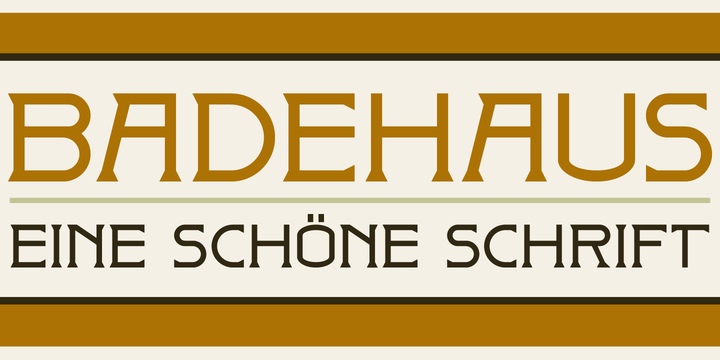
Badehaus Font
Badehaus Font is perfect for luxury spa resort branding, thermal wellness center signage, German-inspired bathhouse logos, boutique hotel bathroom amenities, premium wellness retreat materials, sophisticated hydrotherapy clinic graphics, exclusive wellness sanctuary communications, high-end sauna facility branding, therapeutic bathing establishment signage, and refined wellness tourism marketing. This distinguished typeface excels in applications where European spa heritage, wellness sophistication, and therapeutic luxury are fundamental brand characteristics.
What makes Badehaus Font exciting is its elegant embodiment of traditional European bathing culture through refined letterforms that capture the serene sophistication and therapeutic luxury of historic Continental spa traditions. The font features clean, architectural character construction with subtle wellness-inspired details that immediately convey relaxation and refined therapeutic excellence. Its sophisticated presence makes it perfect for brands that celebrate the intersection of wellness science and luxurious comfort, where traditional European spa wisdom meets contemporary therapeutic innovation.
The Badehaus Font family typically includes Light and Regular weights, often accompanied by condensed variations that enhance design efficiency while maintaining the clean, therapeutic aesthetic essential for wellness applications. Many versions include alternate characters with enhanced wellness styling, decorative elements inspired by European spa architecture, and special symbols related to hydrotherapy and therapeutic treatments. Some collections feature minimalist variations and clean effects that amplify the sophisticated wellness atmosphere for premium spa positioning.
Whether you're developing brand identities for luxury wellness facilities, creating materials for therapeutic spa services, or designing content that celebrates European wellness traditions and sophisticated self-care practices, Badehaus Font Free Download provides the authentic wellness elegance that resonates with clients seeking premium therapeutic experiences and sophisticated relaxation. Its refined presence makes it ideal for high-end wellness establishments that honor traditional spa culture while delivering contemporary luxury and therapeutic excellence. The font's ability to convey both therapeutic authority and luxurious comfort makes it particularly valuable for premium spas, wellness resorts, and therapeutic facilities seeking to attract discerning clients who value authentic wellness heritage, therapeutic expertise, and the kind of sophisticated relaxation that restores both body and spirit.